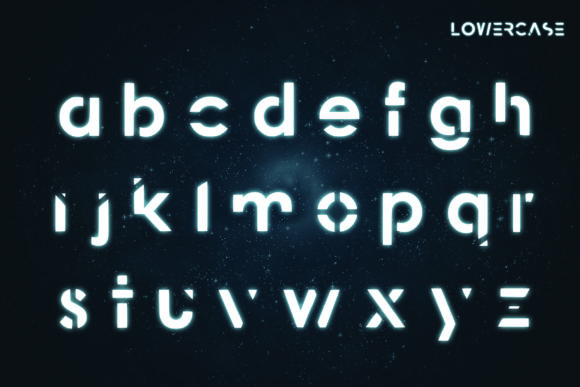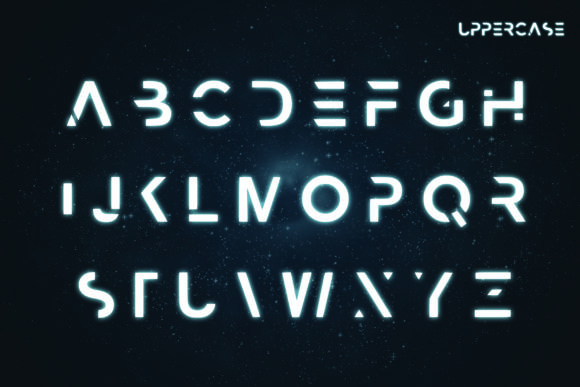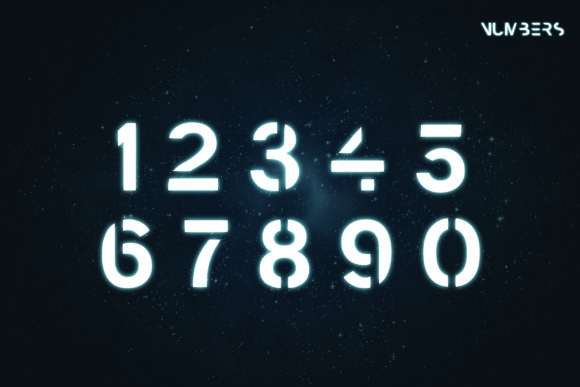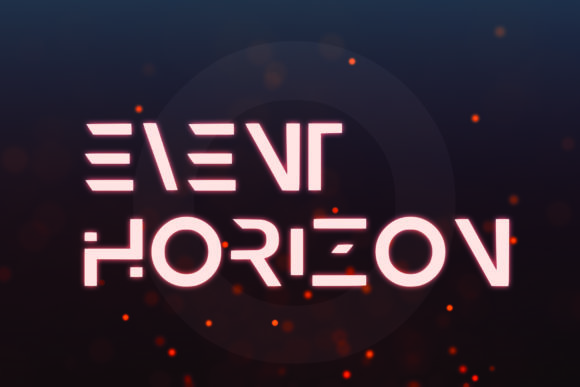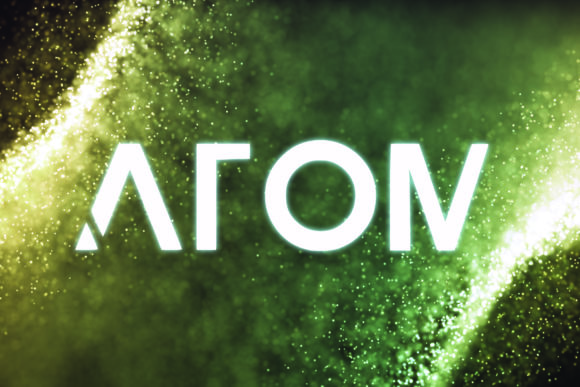
It was love at first sight! **Aphilion’s futuristic coolness** immediately caught my attention. I knew right then and there that this was the font I had been searching for. But, as with any font, it’s not just about looks; it’s about functionality, versatility, and how it will work with your design.
An Honest Review of Aphilion Font
- ✨ Unique and Creative: Aphilion is not your average font. Its creative design makes it perfect for display purposes, headings, or any project where you want to make a statement.
- ✅ Handcrafted with Passion: The attention to detail is evident. Each letterform has been carefully crafted to ensure a cohesive and aesthetically pleasing look.
- 💻 Versatility: Whether you’re working on a digital project or a print design, Aphilion adapts well, making it a versatile addition to your font library.
⚠️ While Aphilion is fantastic for display purposes, it might not be the best choice for body text due to its intricate design. And, as with many creative fonts, readability at smaller sizes can be a challenge. It’s also worth noting that some of the more unique features might not display correctly in all applications or platforms.
🤔 Another thing to consider is that, because of its uniqueness, Aphilion might not pair well with every font. You’ll want to choose complementary fonts carefully to ensure your design still communicates effectively.
Aphilion was born out of a passion for futuristic design and a desire to create something unique. The designer, inspired by sci-fi and modern technology, aimed to craft a font that would embody the essence of the future. Through meticulous handcrafting, Aphilion was brought to life, offering a fresh perspective for designers looking for something beyond the ordinary.
| What is Aphilion Font best used for? | Aphilion Font is best used for display purposes, such as headings, titles, and any project where a unique, futuristic look is desired. |
| Is Aphilion suitable for body text? | While Aphilion can be used for body text, its intricate design may affect readability at smaller sizes. It’s primarily designed for display purposes. |
| Does Aphilion support OpenType features? | Yes, Aphilion supports OpenType features, including stylistic alternates and glyphs, allowing for a high degree of customization in compatible applications. |
Aphilion Font is more than just a typeface; it’s a statement. Its futuristic coolness and creative design make it a valuable addition to any designer’s toolkit. Whether you’re crafting a brand identity, designing a website, or working on a personal project, Aphilion offers a fresh and inspiring choice.